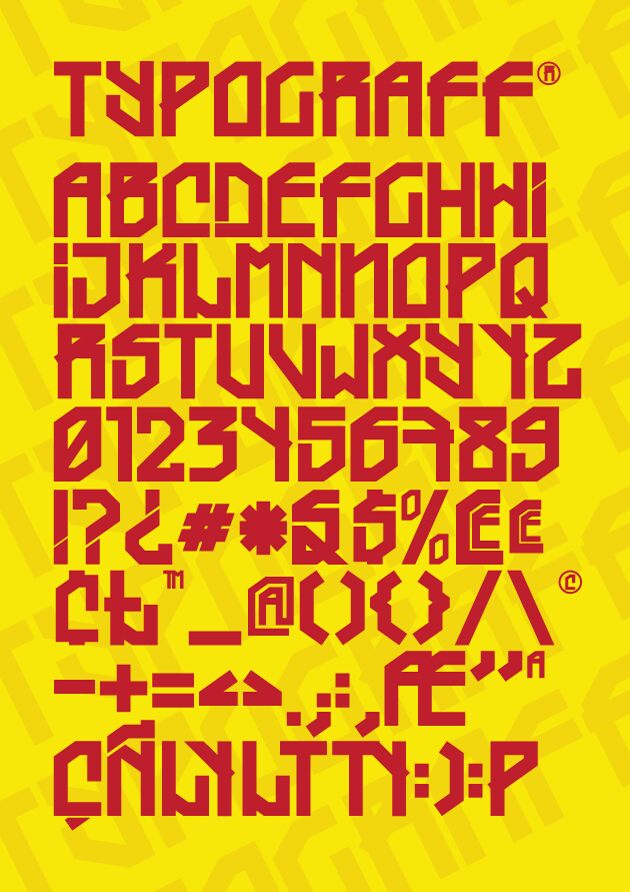
Typograff by Rogério Oliveira is a free futuristic display font built from tall, angular capitals and sharply cut geometric strokes. Broad verticals, triangular joints, and open breaks make the lettering resemble engineered symbols rather than conventional type.
It is strongest in game logos, where its compact mechanical forms can suggest machines, armored structures, or alien technology. It also suits science-fiction posters and electronic music artwork. In interface graphics, the broken shapes can become part of a panel system or coded insignia, turning labels into graphic elements that echo the surrounding controls.
Inspired by Brazilian graffiti, grapixo, and pichação.